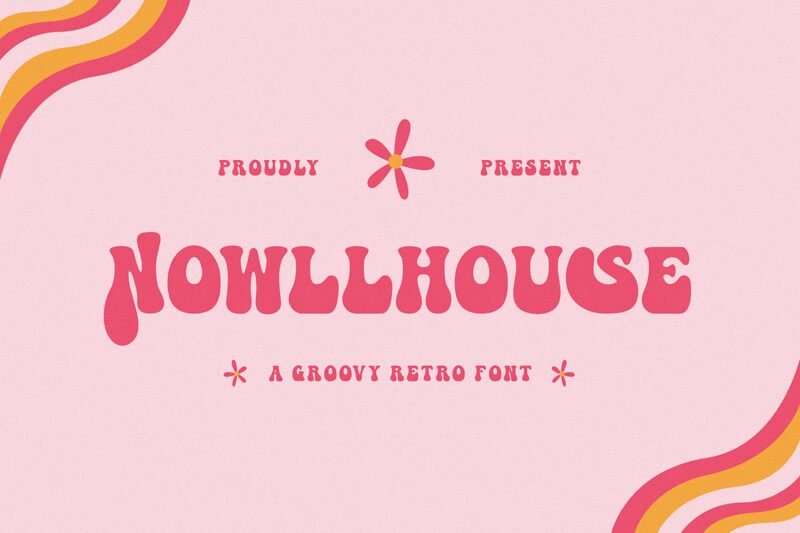
Nowllhouse is a bold, groovy display font crafted by Typefactoryco. Radiating a playful, retro-inspired aesthetic, this font exudes a delightful sense of nostalgia. Its distinctive letterforms, with their rounded edges and quirky, handcrafted-inspired character, lend an unmistakable vintage charm to any design.
Nowllhouse's versatility makes it a compelling choice for a wide range of applications, from vibrant, eye-catching headlines to impactful branding and packaging designs. Its bold, attention-grabbing presence can elevate concert posters, album covers, and other music-related projects, infusing them with a captivating, retro-futuristic vibe. Equally at home in modern, eclectic settings, Nowllhouse can also breathe new life into product labels, signage, and promotional materials, adding a touch of whimsical flair to any design.